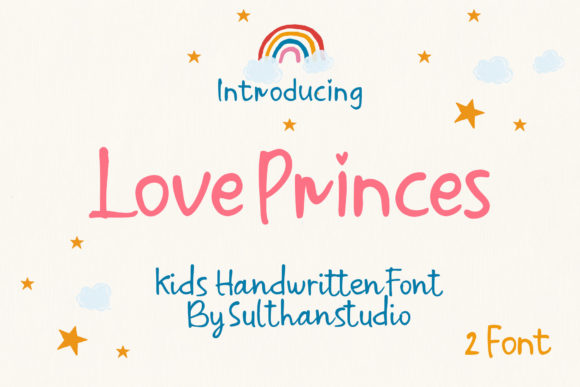
Unleash your creativity with Love Princes, a script font designed to capture the essence of royalty and charm. This enchanting font is perfect for adding a touch of elegance and sophistication to your designs.
Love Princes is a beautiful and versatile font that is perfect for a wide range of projects, from baby shower invitations to wedding announcements. Its delicate and flowing lines create a timeless look that will surely impress.
With its stylish alternates and ligatures, Love Princes allows you to add a personal touch to your designs. Create unique and eye-catching logos, headings, and quotes that will leave a lasting impression.
Love Princes is the perfect choice for those who want to add a touch of magic to their projects. Its timeless beauty and versatility make it a must-have for any designer's toolkit.
* Its delicate and flowing lines create a timeless look
* Its stylish alternates and ligatures allow you to add a personal touch
* Its versatility makes it perfect for a wide range of projects, from baby shower invitations to wedding announcements